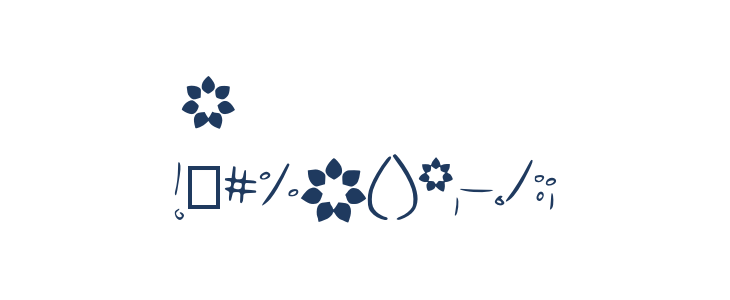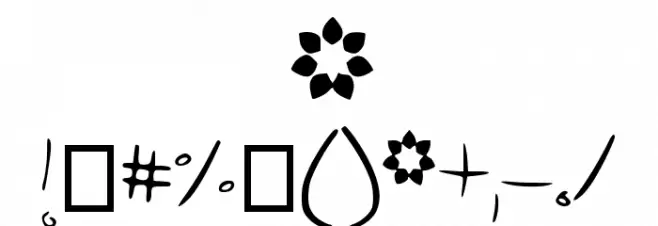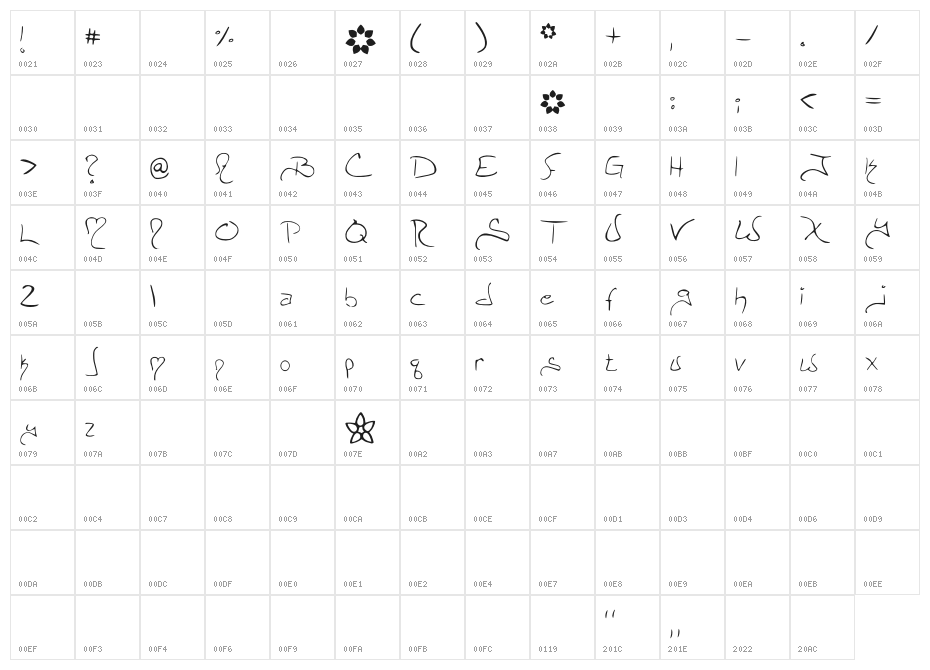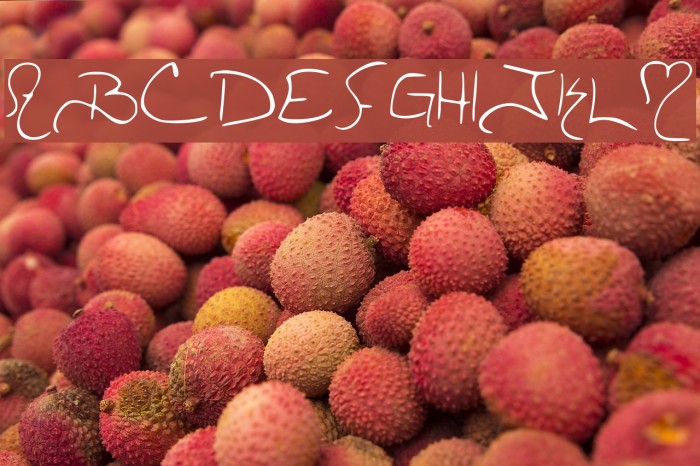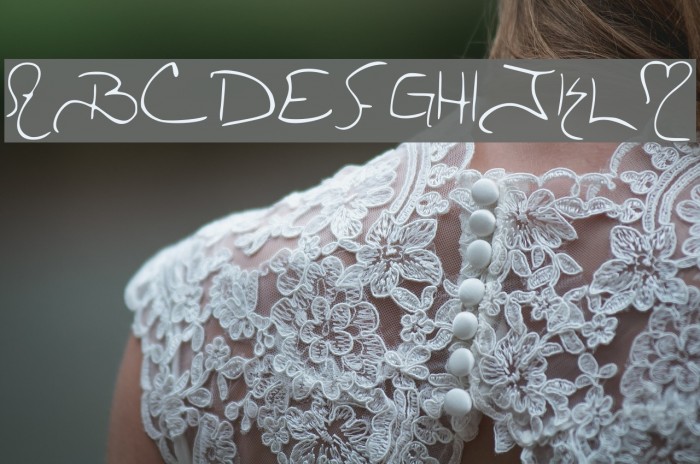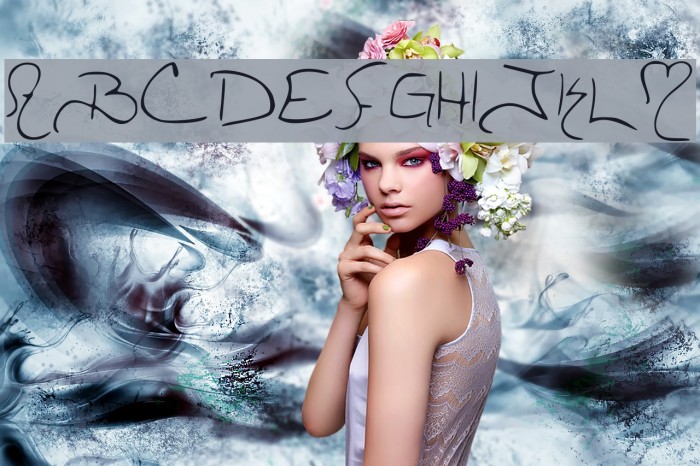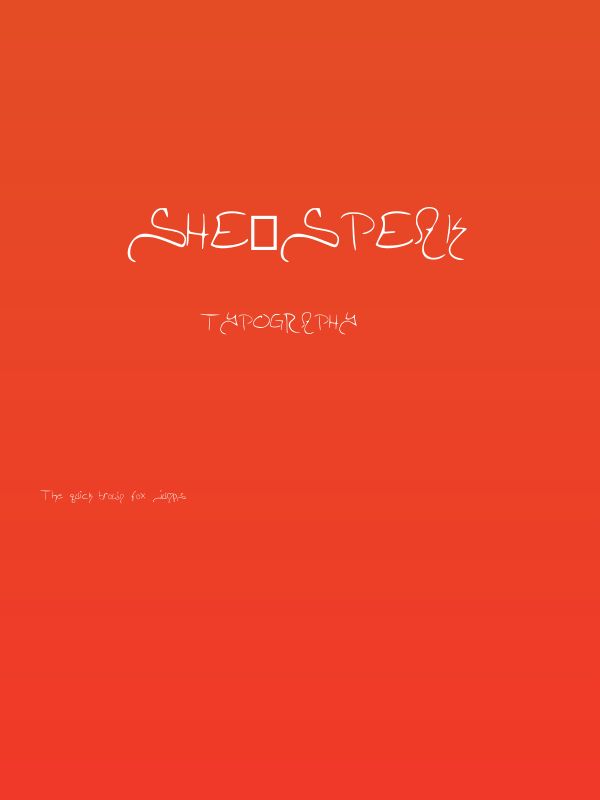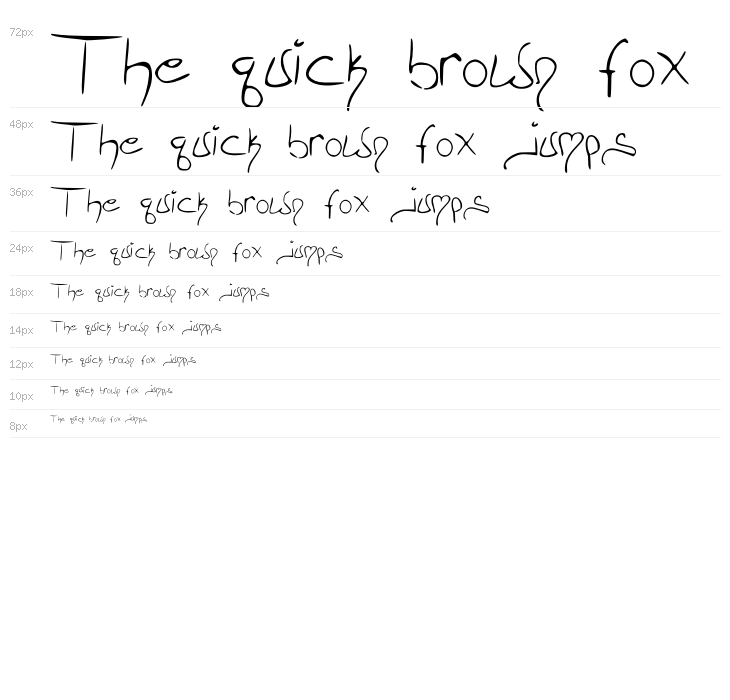
She_Speak Font
She_Speak Description
This font features a unique and artistic design with a whimsical flair. The characters are crafted with flowing, curved lines that give it a sense of movement and elegance. The uppercase letters have an ornamental quality with extended strokes and loops, while the lowercase letters maintain a consistent style with a slightly more subdued flair. The numbers and special characters follow the same artistic theme, adding a cohesive look to the entire set. This font is perfect for creative projects that require a touch of sophistication and playfulness.
| Proposed Projects | Ideal for invitations, greeting cards, artistic posters, and branding materials that require a creative and elegant touch. |